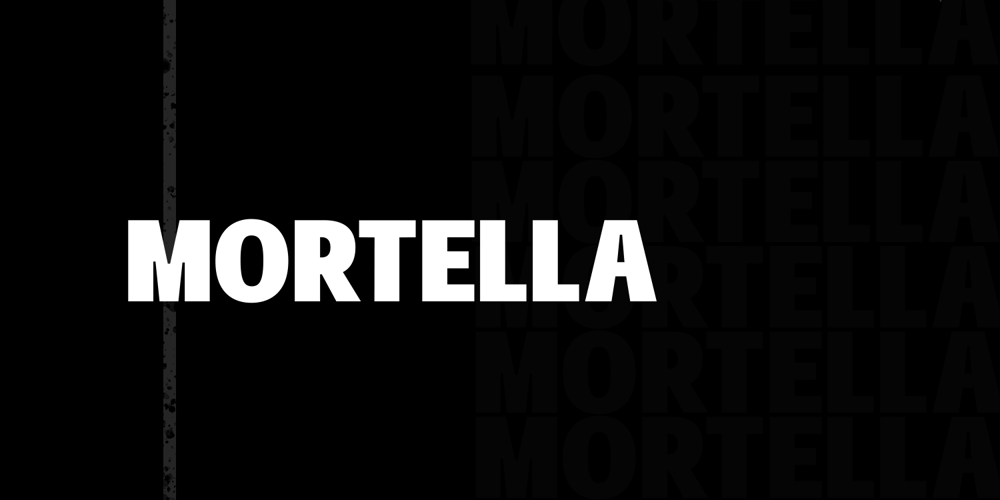
Mortella Display Font Family was designed by Evin Tony and published by FoxType. Mortella Display contains 3 styles and family package options. Mortella Display is a Brand New Elegant Typeface with a powerful font family. It has a dependable and uncompromising style, with controlled letterforms and modern touches. It looks amazing in logos, magazines, and movies. Mortella Font would be perfect for branding, headlines, Captions, paragraphs, and posters. The various weights allow you to experiment with a wide range of applications. It’s created to make an impression without sacrificing its beauty and readability. It’s shown a clean, minimalist, warmth, quirky, yet still purposed to be versatileThe Typeface includes Three Weights – Bold, ExtraBold and Black. Numerals and extended punctuation (200+ Glyphs). Expert kerning and quality crafting. Thank you for taking the time to look into the font.